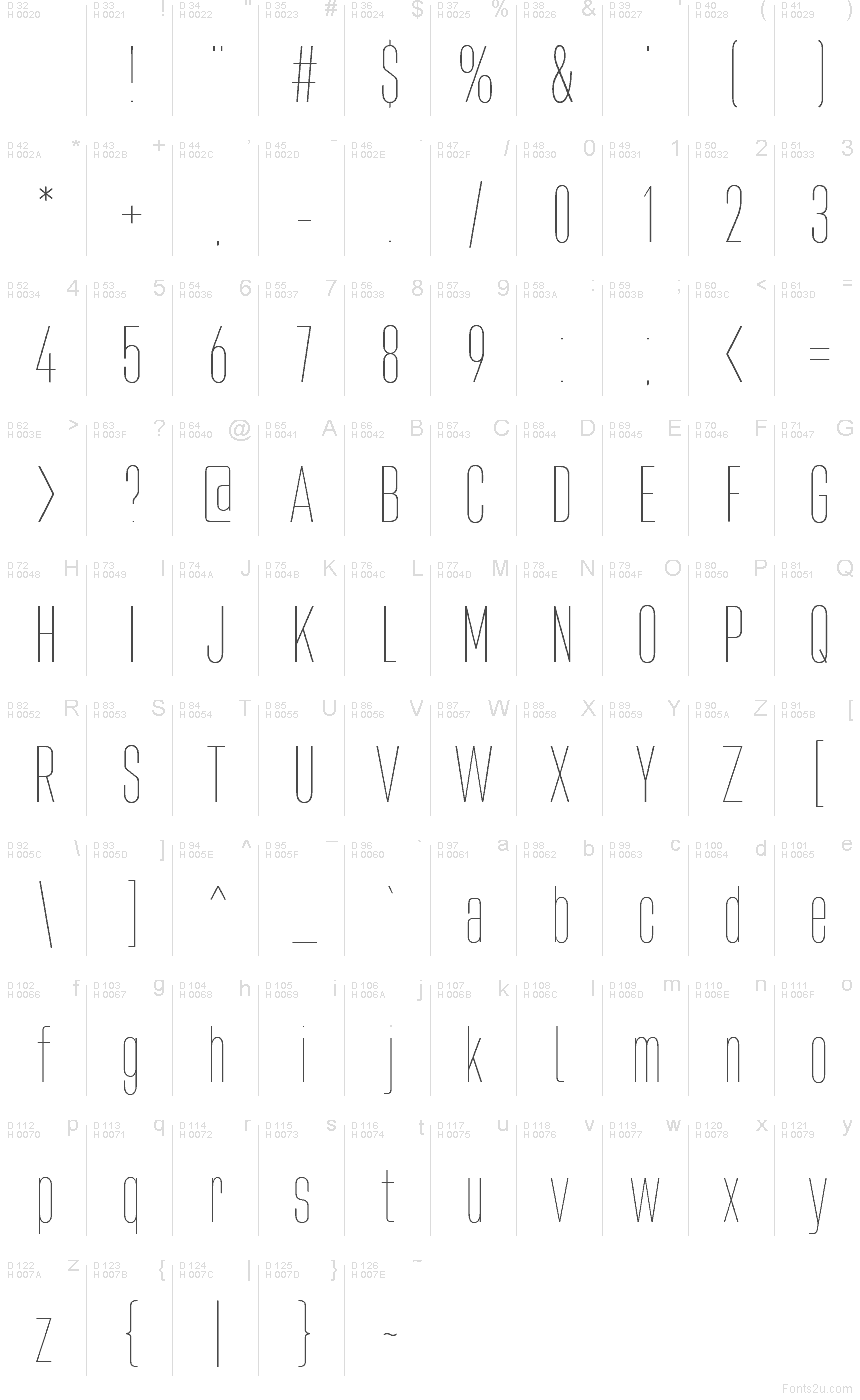
Bilgen Demo Thin
Bilgen Thin font by Bykineks is a free ultra-light sans serif typeface that turns vertical space into its signature look. With its stretched, column-like letters and hairline strokes, it feels both architectural and delicately wired, like neon tubing drawn with a single, steady line. The Bilgen family’s unmistakable narrow rhythm lets you stack long words into tight spaces while still keeping everything airy and legible.
Using Bilgen Thin, you can give fashion branding, luxury packaging, editorial mastheads, posters, album covers, and minimalist portfolios a cool, modern edge without visual clutter. This free font shines at large sizes where its whisper-thin lines and tall proportions can really breathe; pair it with a simple, wider sans serif for body text to balance its slender silhouette.
Bilgen is a condensed typeface family with 27 weights ranging from Thin to Black. It includes the following OpenType features:
- interlock
- alternates
- ligatures
- small caps
- numerator
- denominator
- baseline shift
Supports 66 languages.